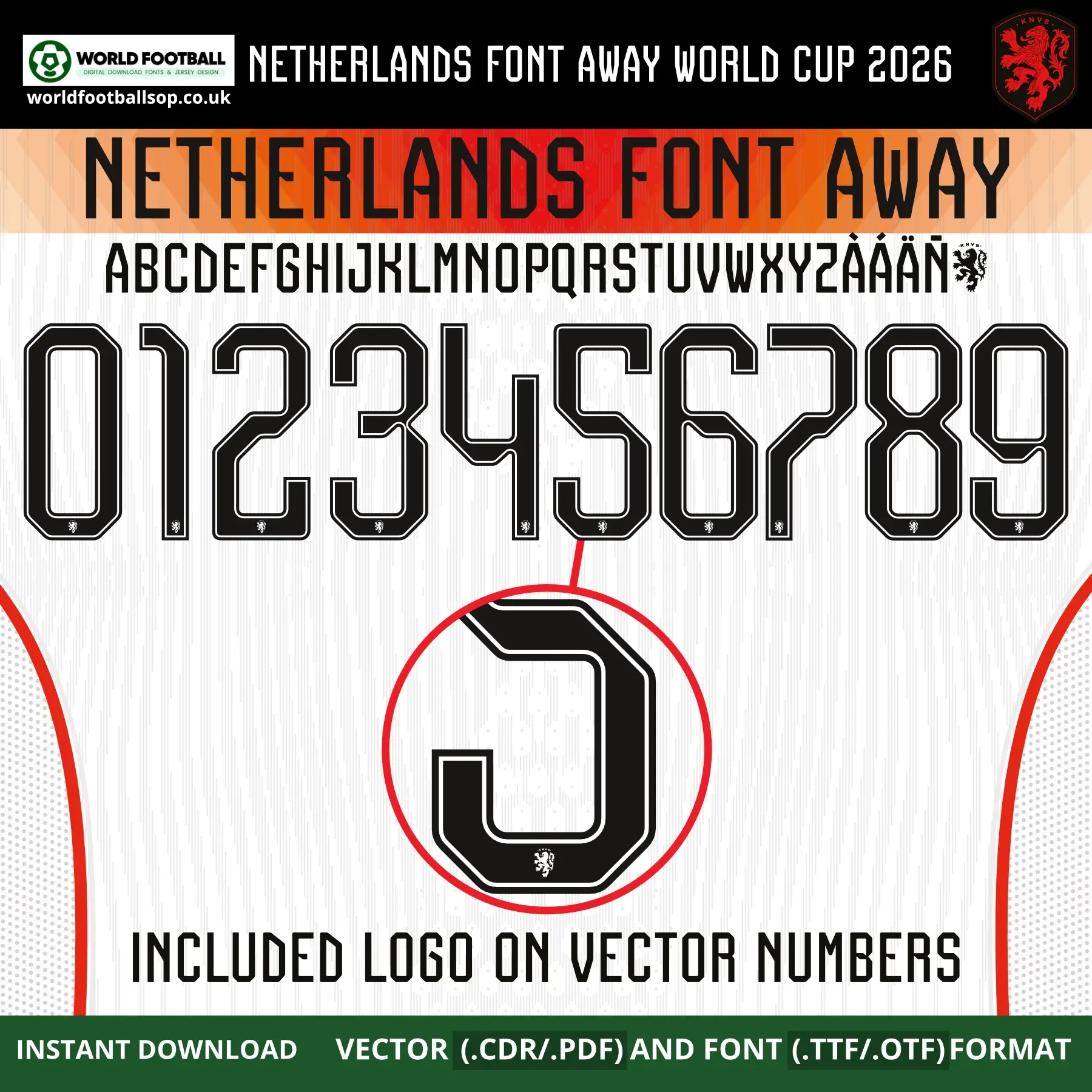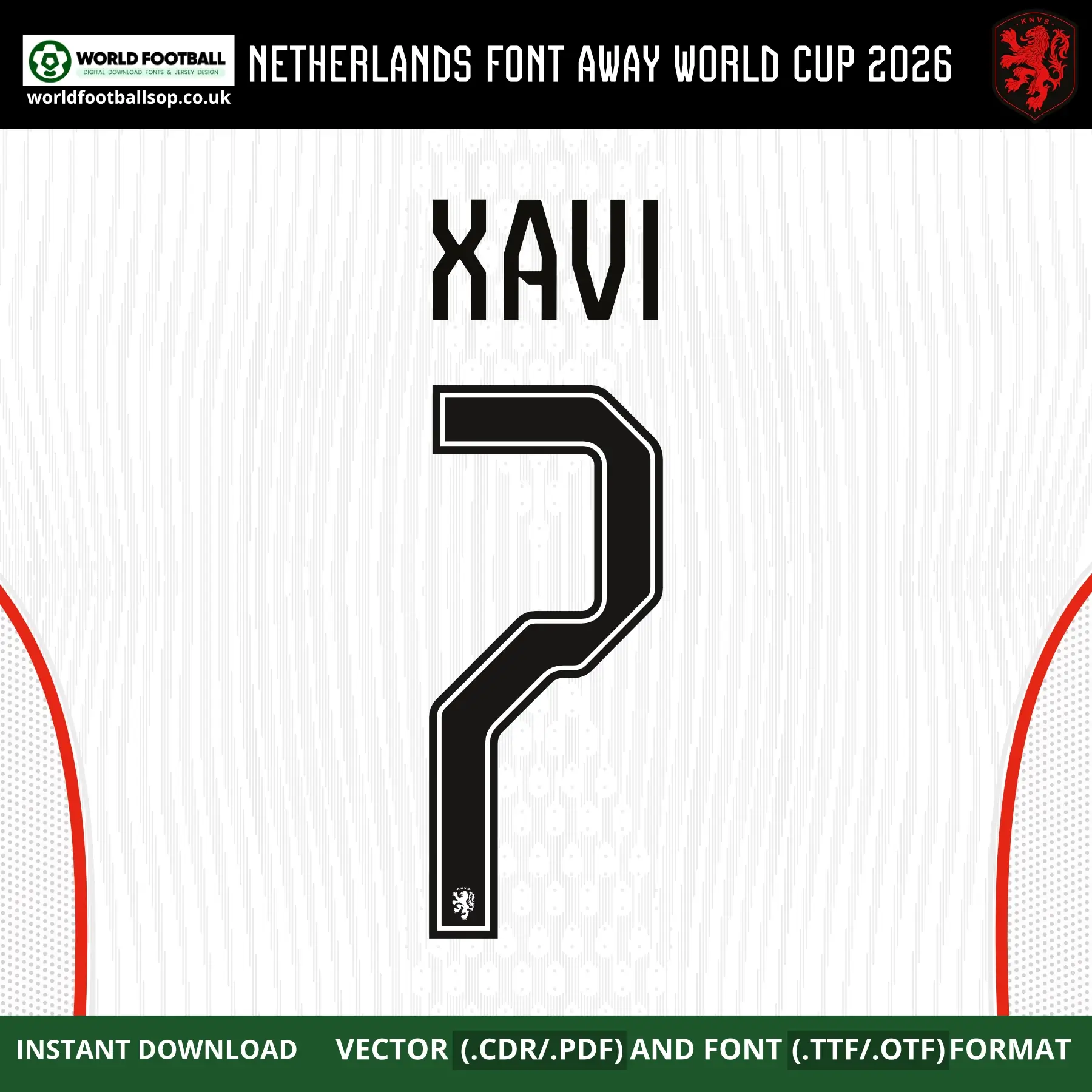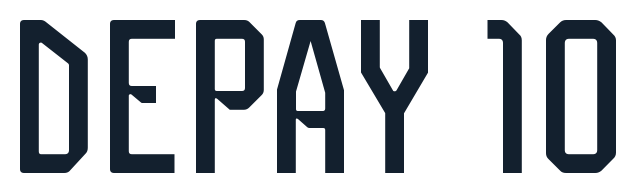
Netherlands Away Font World Cup 2026 - Official‑style Jersey Typography
This Netherlands Away Font World Cup 2026 kit recreates the bold, rounded geometric lettering used on the Oranje's clean white away shirts for the 2026 FIFA World Cup in USA, Mexico and Canada. The tall, wide rounded-corner numbers and letters feature a striking bold black fill with a sharp white inner-line running through each character, giving the font a modern and highly distinctive look that perfectly captures the style of the Netherlands' official away kit typography. It is perfect for fans, designers and printers who want authentic‑looking names and numbers on custom Netherlands Oranje away kits and football graphics.
The font football is supplied in both desktop formats (TTF/OTF) and scalable vector files so you can work comfortably in your favourite design software. The bold black lettering on a crisp white away kit background with red side panel detail seen in the previews mirrors the Netherlands' official away colour palette, making your mockups and prints look match‑ready. Every vector number includes the embedded KNVB (Koninklijke Nederlandse Voetbalbond) lion crest for maximum authenticity.
KNVB lion crest embedded on every vector number and letter
Full uppercase alphabet A-Z and numbers 0-9 with extended Latin accents (À, Á, Ä, Ñ)
Preview layouts showing complete number set and example name/number combo - XAVI 7
World Cup accuracy: Inspired by the exclusive Netherlands Away Font World Cup 2026, not a generic typeface
High legibility: Bold, wide rounded-corner forms with white inner lines keep numbers clear on both TV and print designs while maintaining the Netherlands' unique away identity
Whether you are designing a full squad of custom Netherlands Oranje away shirts or a single fan jersey with your own name and number, this Netherlands Away Font World Cup 2026 gives your project a professional, on‑pitch look.